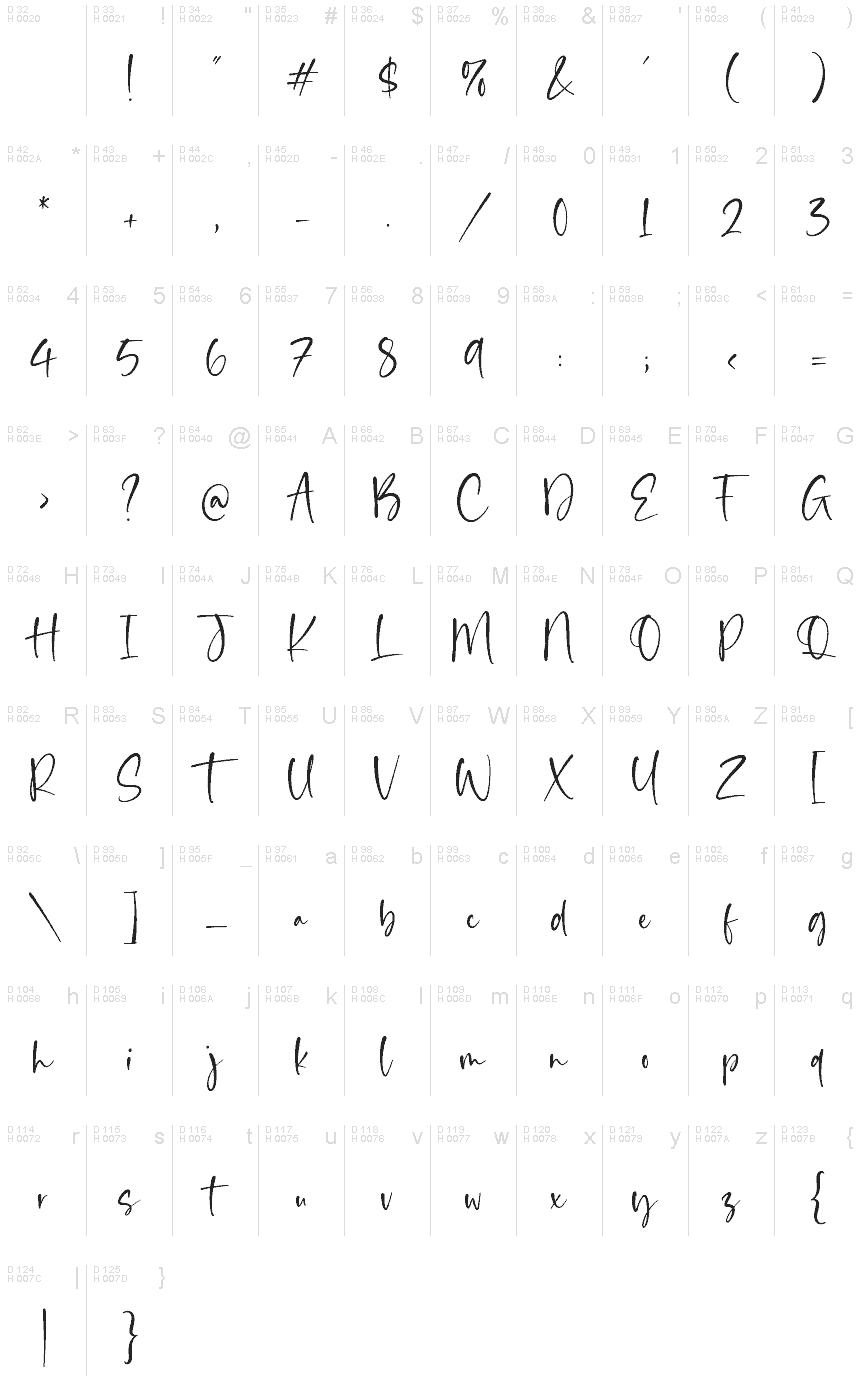
Montreal Diamond
Montreal Diamond font by Timur Type is a handwritten and expressive font with a signature-inspired style that displays fluidity, modernity, and casual elegance. Each letter is beautifully crafted, giving the text a personalized appearance that feels both artistic and slightly professional.
Incorporate this free handwritten font into signature designs, photography logos, invitation cards for weddings or events, apparel designs like T-shirts or tote bags, quote posts for social media platforms; it’s perfect for branding projects or other creatives where handwriting is essential.